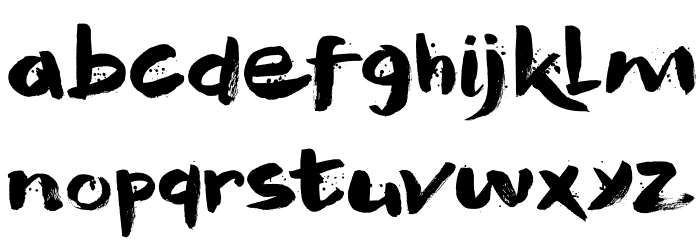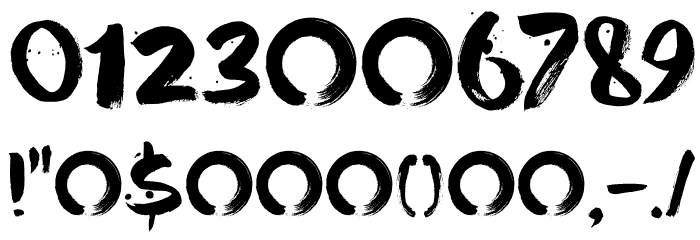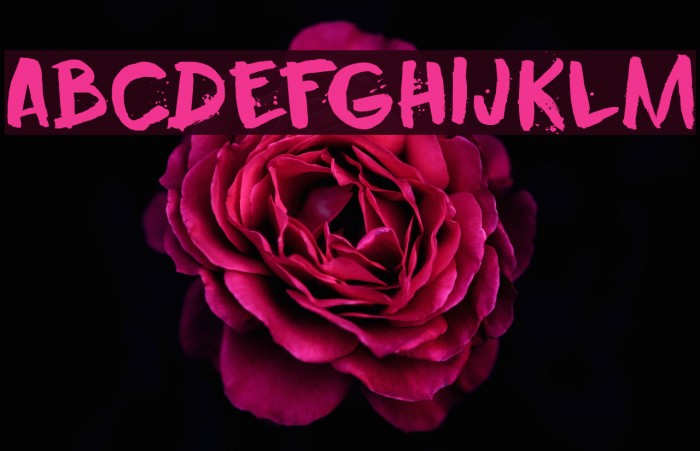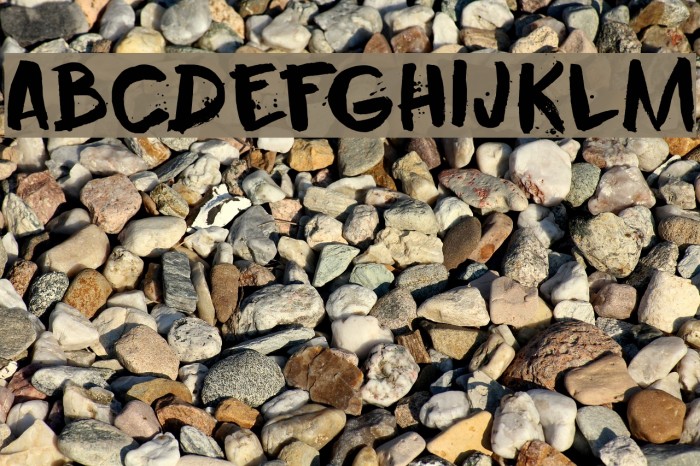
Murasaki DEMO Regular Font
This font features a bold and expressive brush style, characterized by its dynamic and energetic strokes. The letters have a hand-painted appearance, with varying thicknesses that create a sense of movement and spontaneity. The edges are rough and textured, adding to its artistic and informal look. This font is perfect for projects that require a personal touch or a creative flair, such as posters, invitations, or branding for artistic ventures. Its unique style makes it stand out, capturing attention with its bold and lively presence.
A bold, expressive brush-style font with dynamic, textured strokes.
- Proposed Projects: Ideal for posters, artistic branding, invitations, and creative projects.